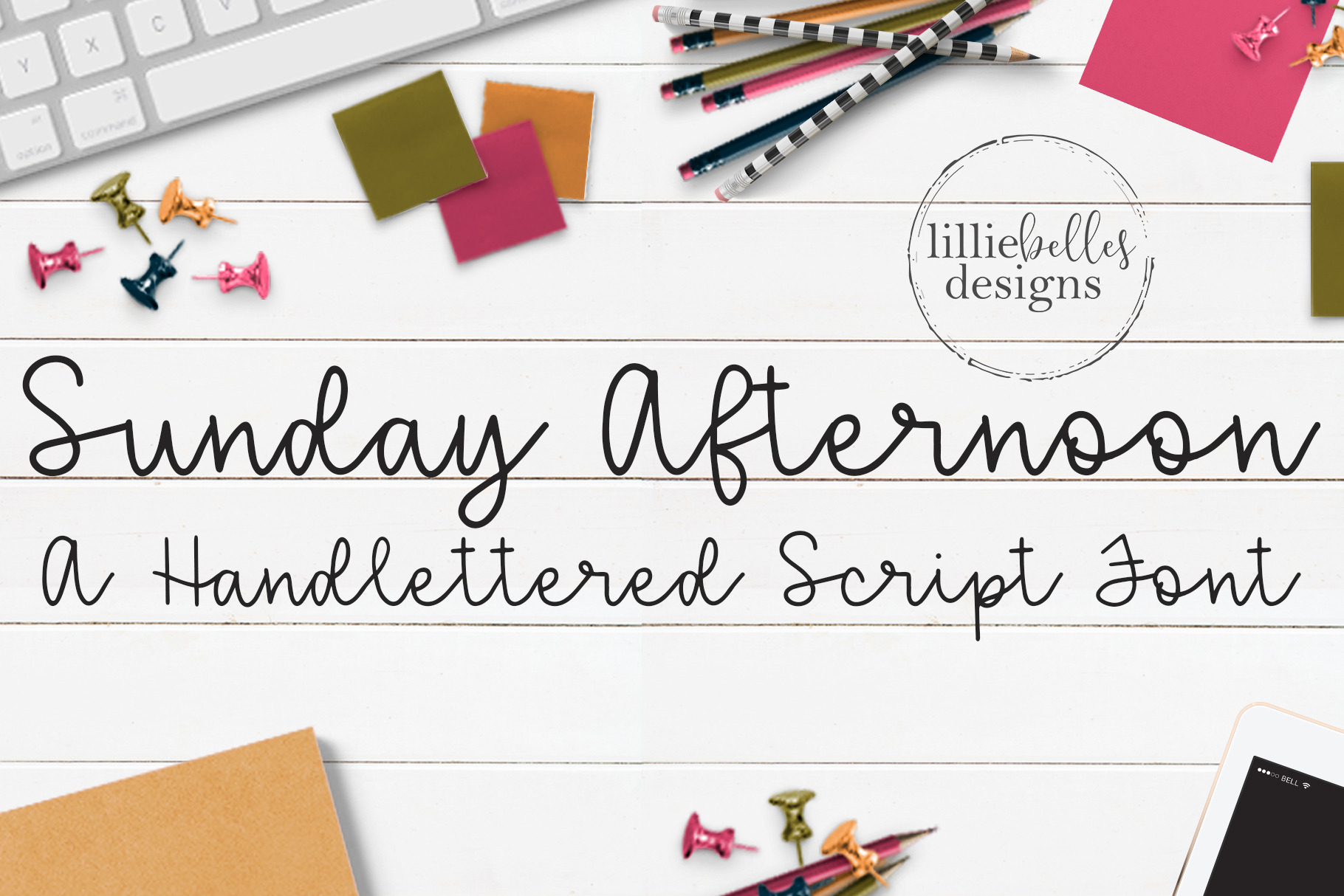
Sunday Afternoon font
Sunday Afternoon - A laid back and relaxed hand lettered script font...
Sunday afternoon is great casual script font that can be used in many different types of projects!